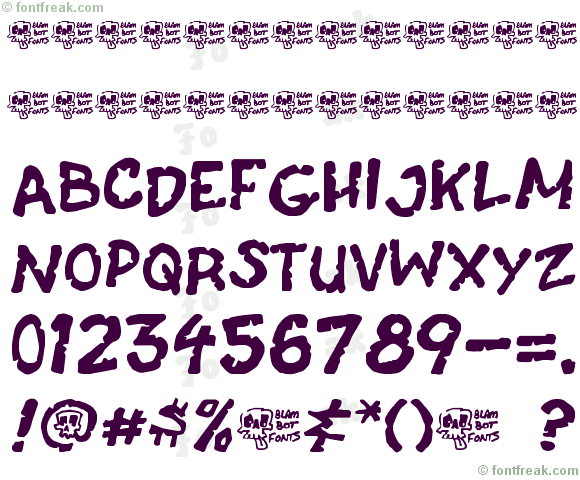
Casket Breath
About Casket Breath
Casket Breath is a distinctive display font designed by Blambot Fonts that exudes a playful yet edgy vibe. This freeware font showcases a unique, stylized appearance that blends whimsical elements with a slight gothic flair. The letters are characterized by uneven stroke weights and a relaxed, organic feel, giving it a handwritten quality that is both captivating and engaging. The spacing between characters is varied, adding to its quirky charm, while decorative elements, such as exaggerated curves and playful flourishes, enhance its visual impact.
Ideal for a variety of creative applications, Casket Breath shines in contexts where a touch of personality is needed. It works wonderfully for designing eye-catching movie posters, where its boldness can draw attention and create intrigue. Additionally, this font is perfect for Halloween-themed events or merchandise, lending a fun and spooky atmosphere. Graphic designers can also utilize Casket Breath in social media graphics, where its unique style can help brands stand out in crowded feeds. For small businesses looking to inject some character into their marketing materials, this font is a great choice for product labels or promotional flyers.
Targeted at graphic designers, content creators, and small business owners, Casket Breath offers a unique solution for those seeking to differentiate their projects. The font's playful yet edgy aesthetic makes it a versatile choice for various creative endeavors. Casket Breath font free download allows users to easily incorporate this unique typeface into their design toolkit without any cost. What sets Casket Breath apart is its ability to convey personality and creativity, making it an exceptional choice for anyone looking to leave a lasting impression with their designs.